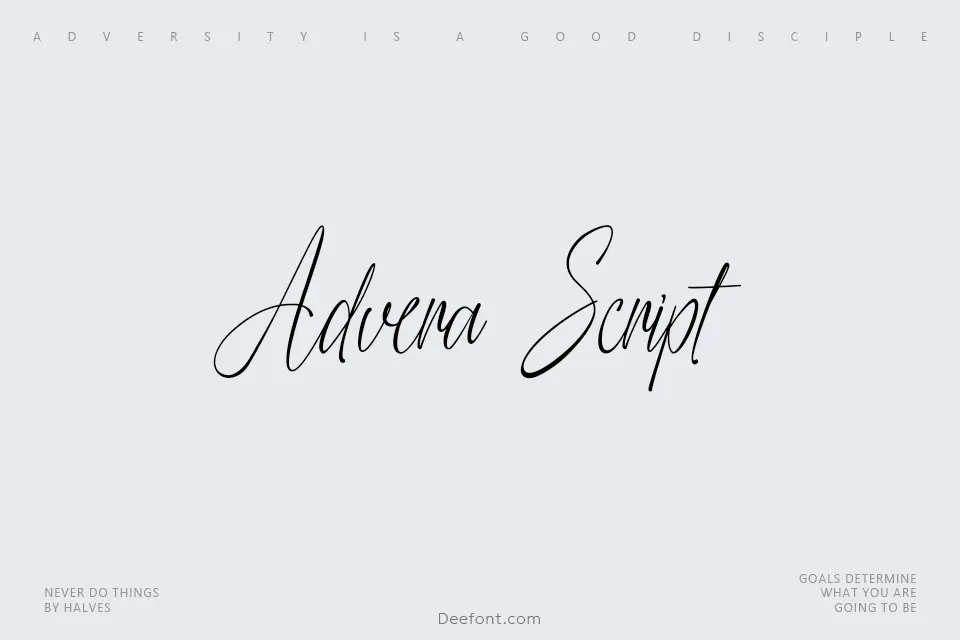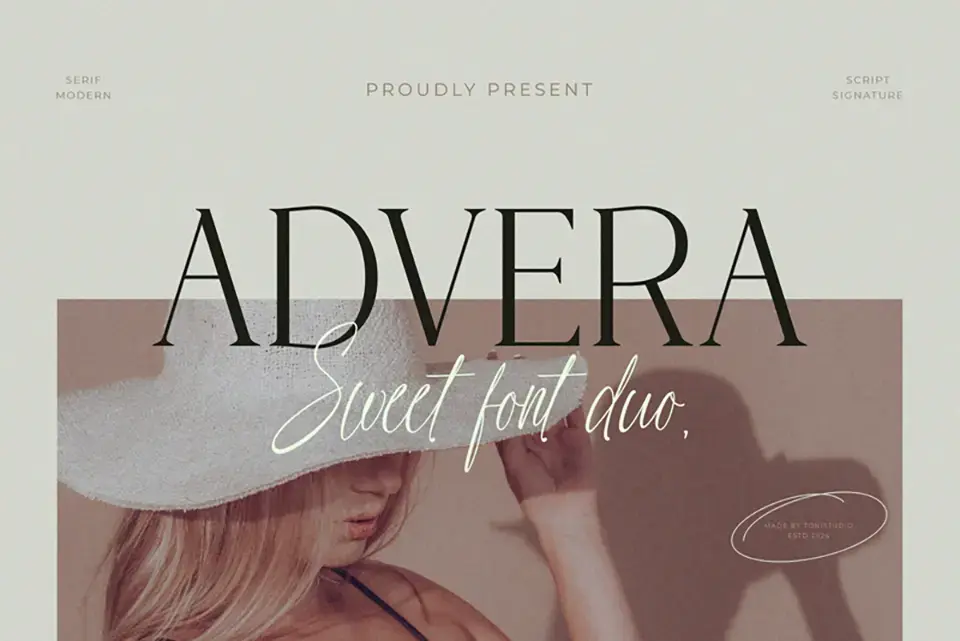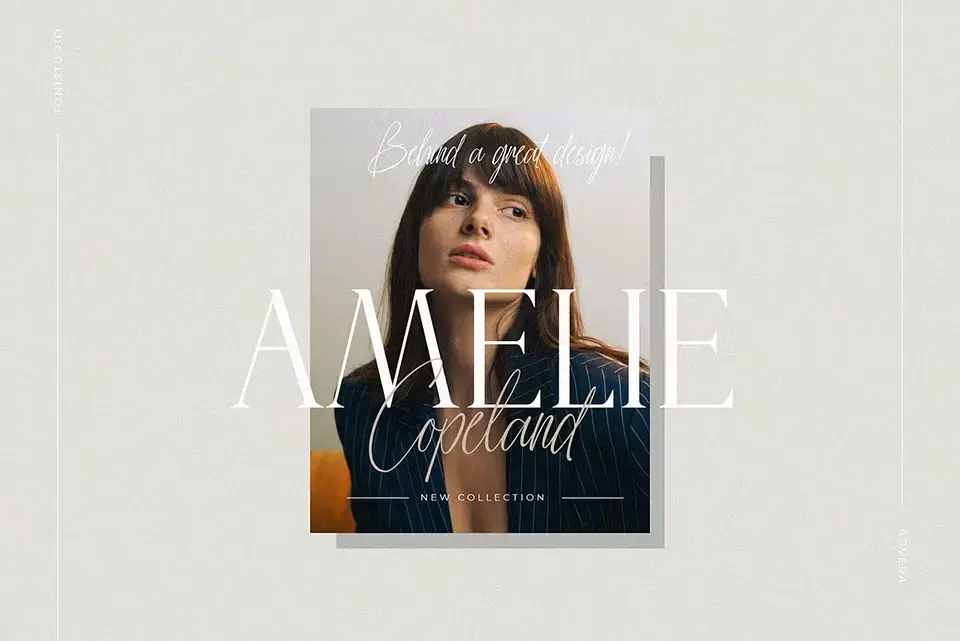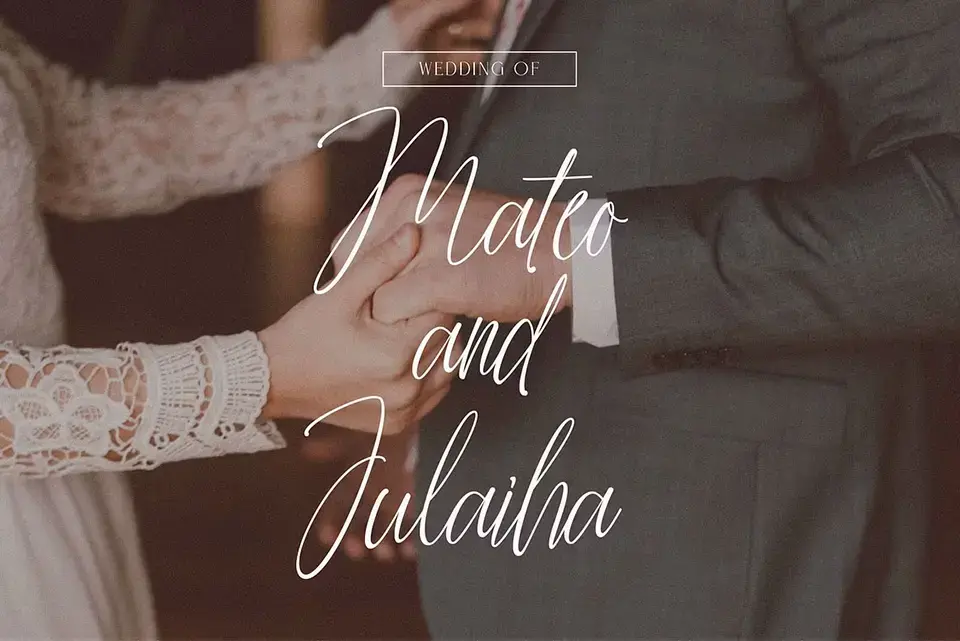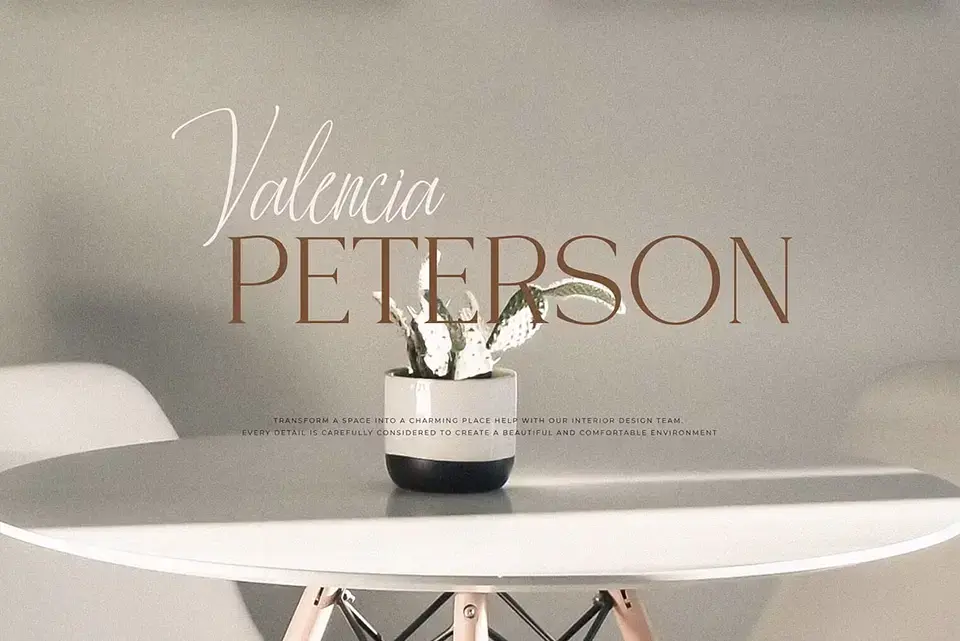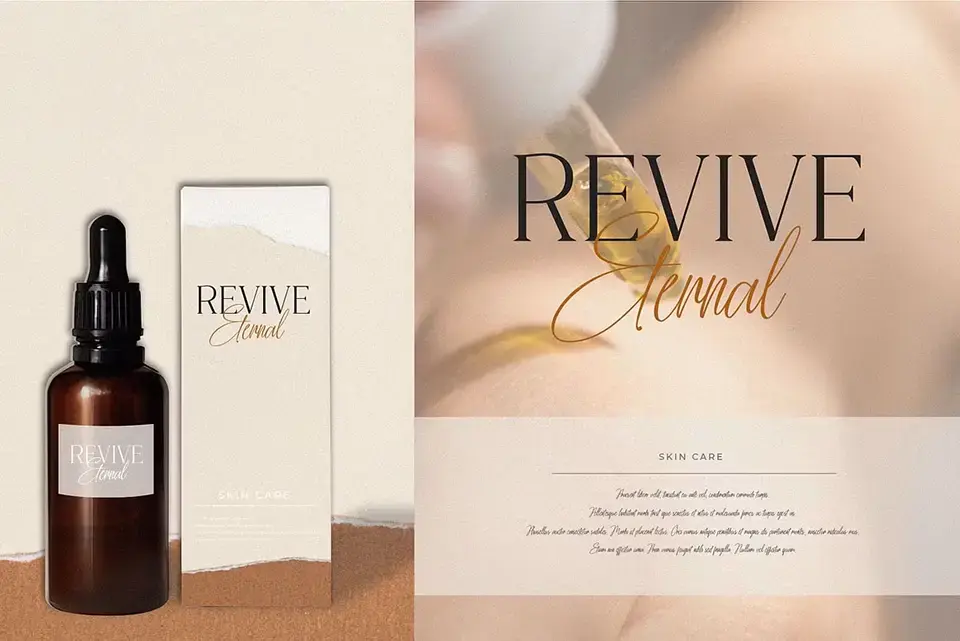
Advera Script Font
Advera Script is an elegant handwritten script typeface featuring flowing, connected cursive letters that embody sophistication and charm. This semi-light weight font combines smooth letterforms with a personal, organic touch, making it ideal for creating memorable visual impressions. Perfect for luxury branding, wedding invitations, elegant packaging, poster designs, greeting cards, and social media content that demands an upscale aesthetic. The typeface delivers a refined signature style suitable for both print and digital applications requiring premium typography.